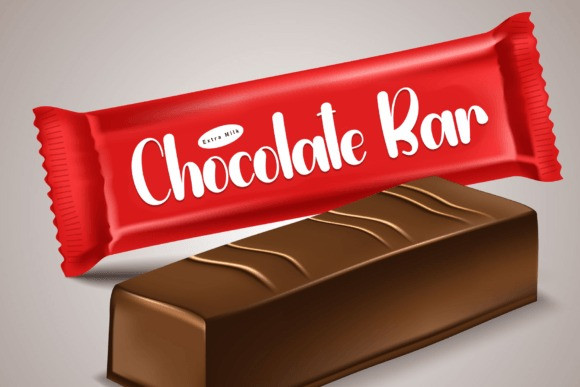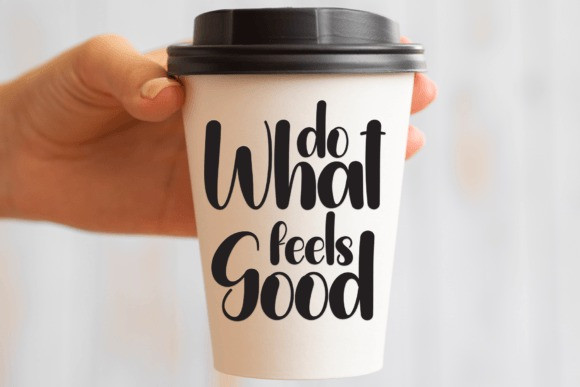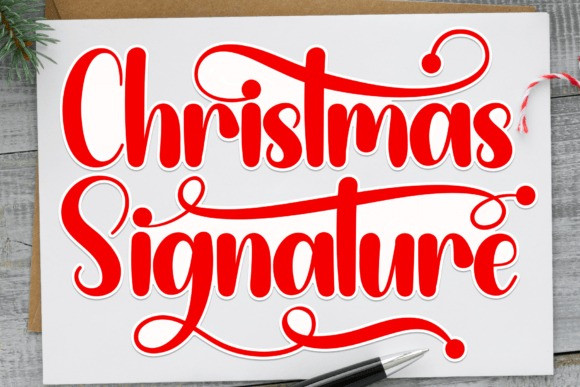
Christmas Signature Typeface
Christmas Signature Font, an exquisite handwritten font adorned with beautiful swashes. This font exudes elegance, making it the perfect choice for adding a touch of sophistication to your holiday designs. Its graceful strokes and festive flair make “Christmas Signature” an ideal companion for creating stunning signatures, greeting cards, and seasonal messages that capture the spirit of celebration with a touch of timeless beauty.